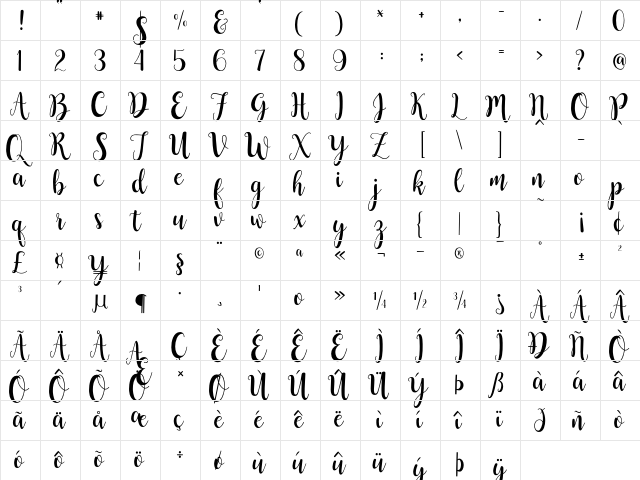
Buttercup Sample Regular
| Foundry | Francis John S. Villo |
| Designer | Francis John S. Villo |
Design Context for Buttercup Sample Typeface
Buttercup Sample is a composed and adaptable typeface that performs quietly and consistently across a wide range of design contexts.